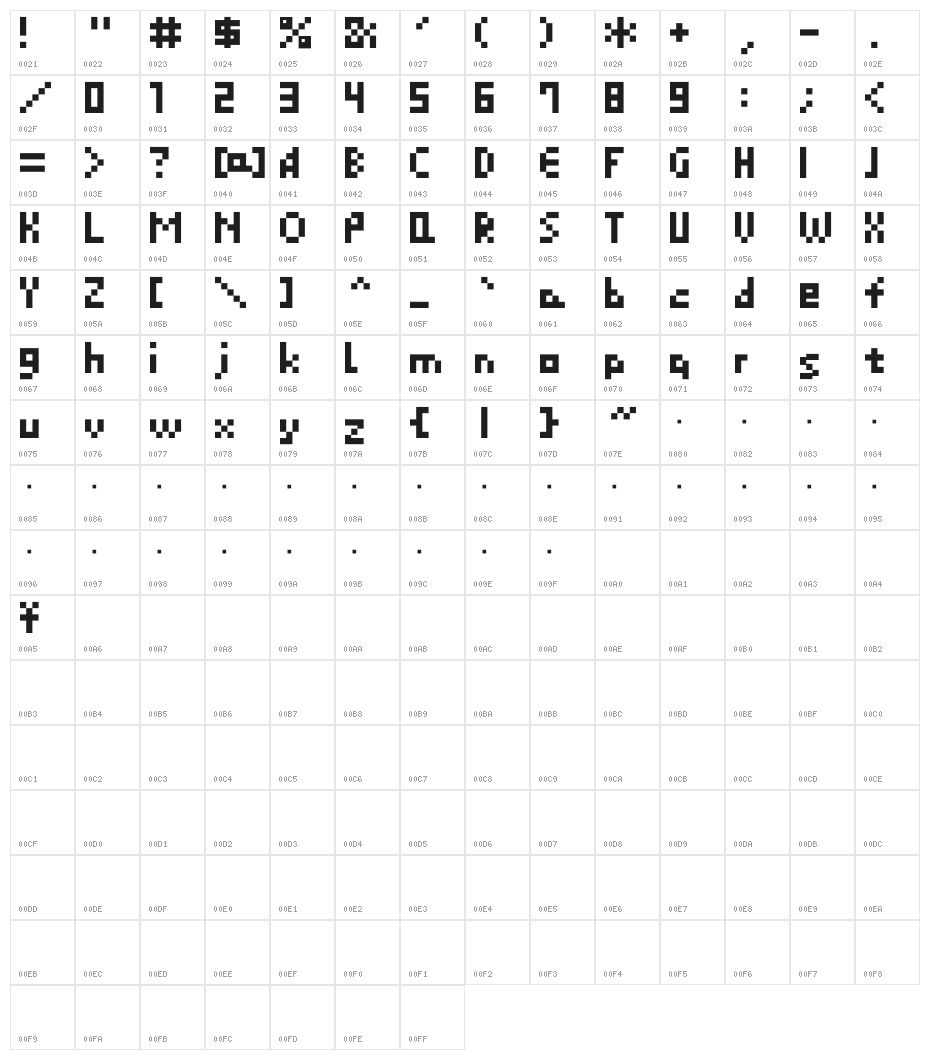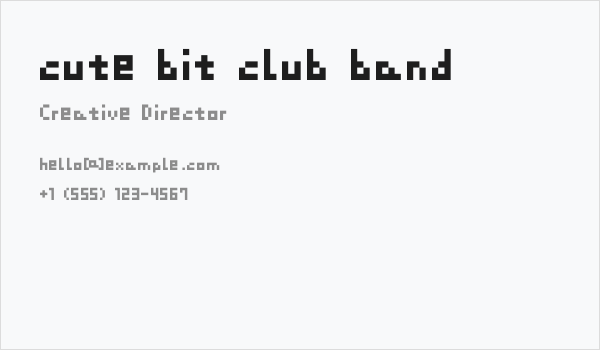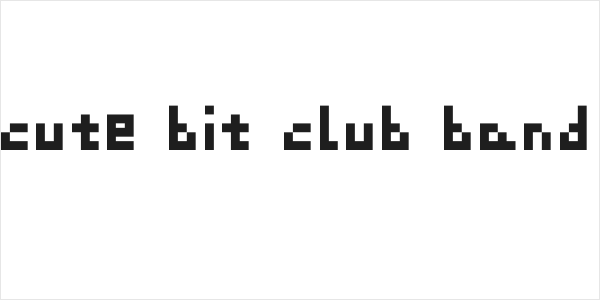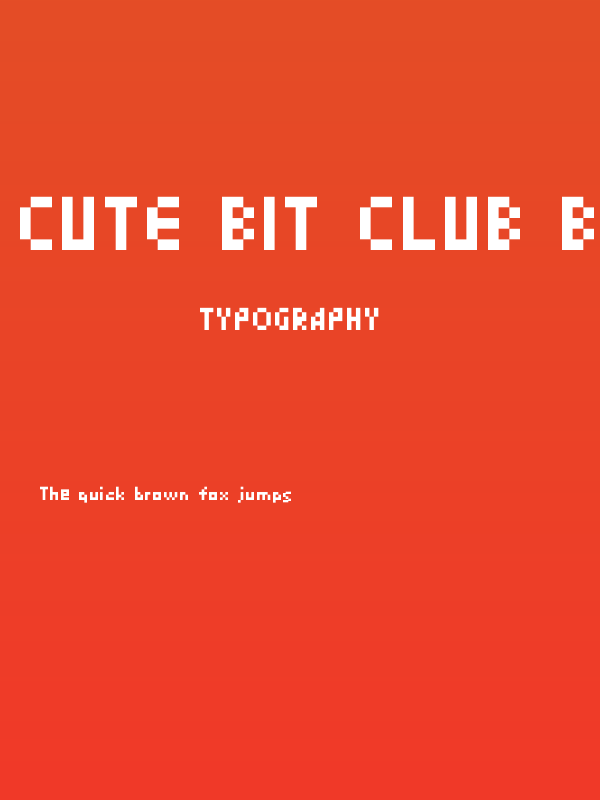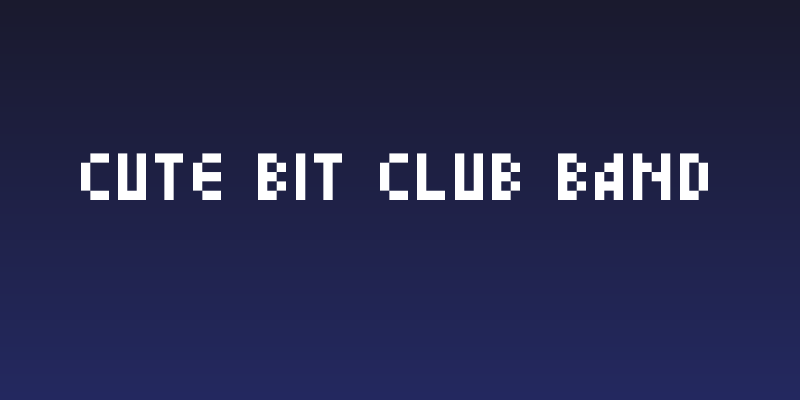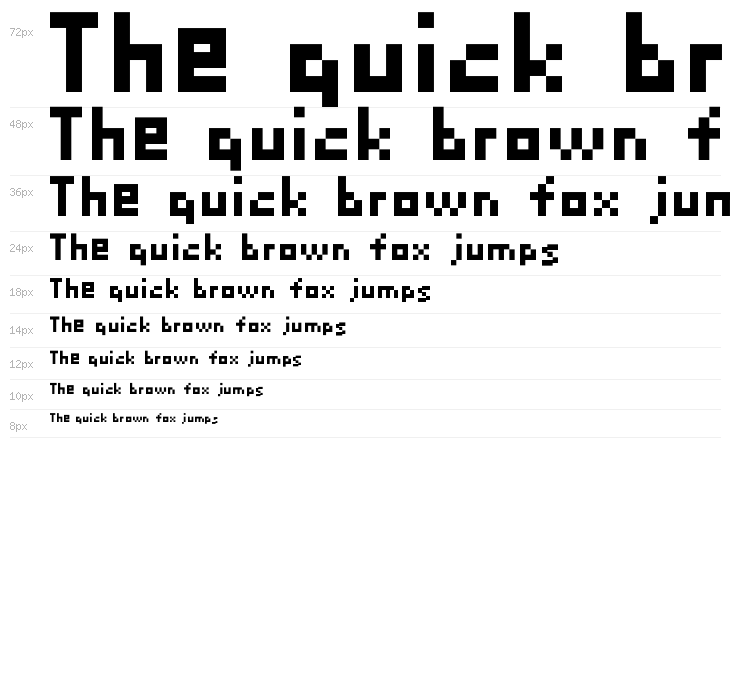
cute bit club band Font
cute bit club band Description
This font features a pixelated, blocky design reminiscent of early digital and video game aesthetics. Each character is constructed with uniform square shapes, giving it a distinctly retro and digital feel. The uppercase and lowercase letters maintain a consistent height, while the numbers and special characters follow the same pixelated style. The font's geometric simplicity and uniformity make it highly legible, even at smaller sizes. Its nostalgic charm is perfect for projects that aim to evoke a sense of vintage digital culture or retro gaming. The bold, monospaced nature of the font ensures that it stands out, making it ideal for attention-grabbing headlines or display purposes.
| Use Case | Headlines, Logos, Display |
| Proposed Projects | Ideal for retro video game designs, digital art projects, tech-themed posters, and nostalgic branding. |